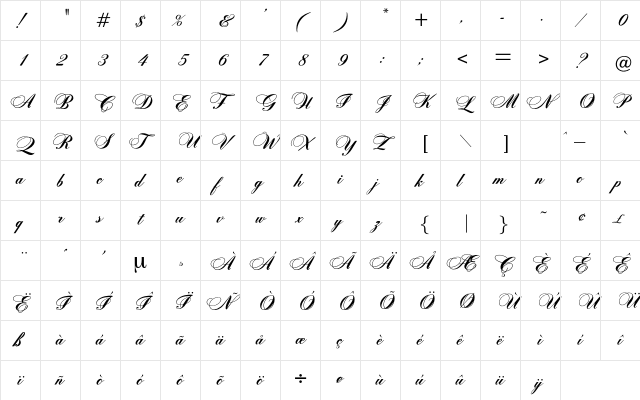
Gitarre Regular
Design Context for Gitarre Typeface
Gitarre is a composed and adaptable typeface that performs quietly and consistently across a wide range of design contexts.